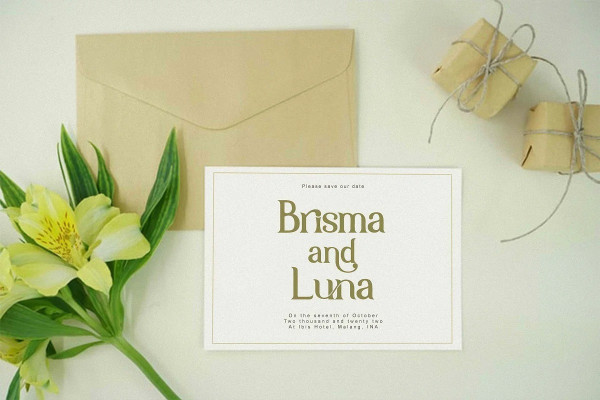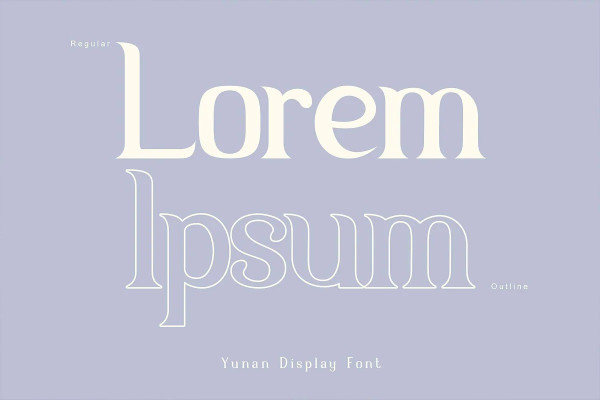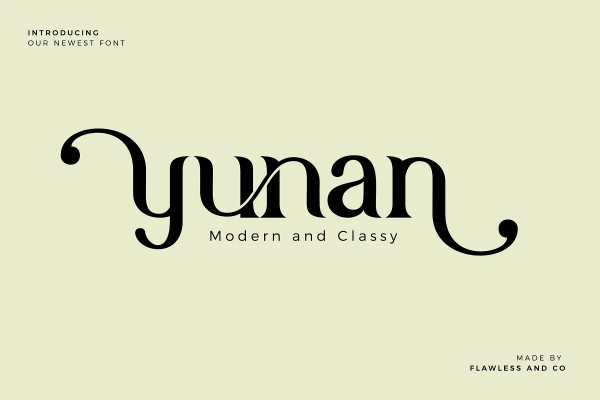
Yunan Font
Yunan Font – Modern Serif Font, New Serif font, this font suitable for branding, wedding invitation, logo, handcrafted, Please download and enjoy, thank you, and don’t forget to check out our other products.